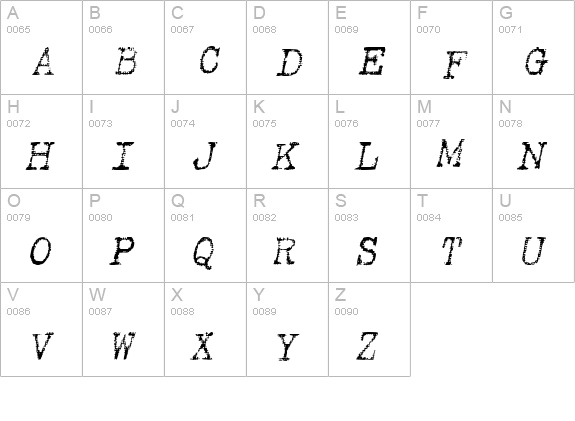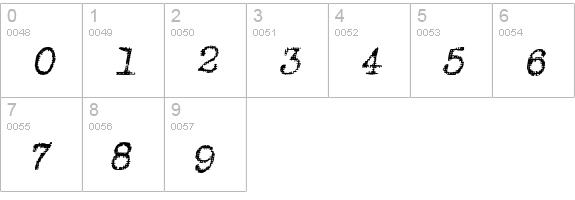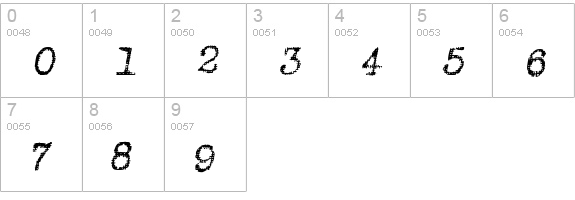
TypewriterRough Italic Font Details
TypewriterRough Italic is a distinctive, italic variant in the TypewriterRough typeface family \xE2\x80\x94 well suited to design and typography projects.
Introducing TypewriterRough Italic font, a captivating and unique typeface that effortlessly combines vintage charm with a modern twist. This font is perfect for adding a touch of authenticity to your designs, whether you're working on branding, packaging, posters, or any other creative project. With its rough and imperfect edges, TypewriterRough Italic font exudes a sense of nostalgia, reminiscent of the classic typewriters of yesteryear. Its italic style adds a subtle elegance and sophistication, making it a versatile choice for both bold headlines and delicate scripts. What sets TypewriterRough Italic font apart is not only its distinctive aesthetics but also its accessibility. We are thrilled to announce that this font is available free of charge, allowing designers, artists, and typophiles alike to enjoy its charm without any cost. To access TypewriterRough Italic font, simply head over to FontsMarket.com, where you can effortlessly download it in just a few clicks. Embrace the beauty of this font and let your creativity soar as you incorporate it into your next project. Whether you're aiming for a vintage-inspired design or simply want to add a touch of personality to your work, TypewriterRough Italic font is the perfect companion. Its freely available download and its unmatched charm make it a must-have for any designer's toolkit.